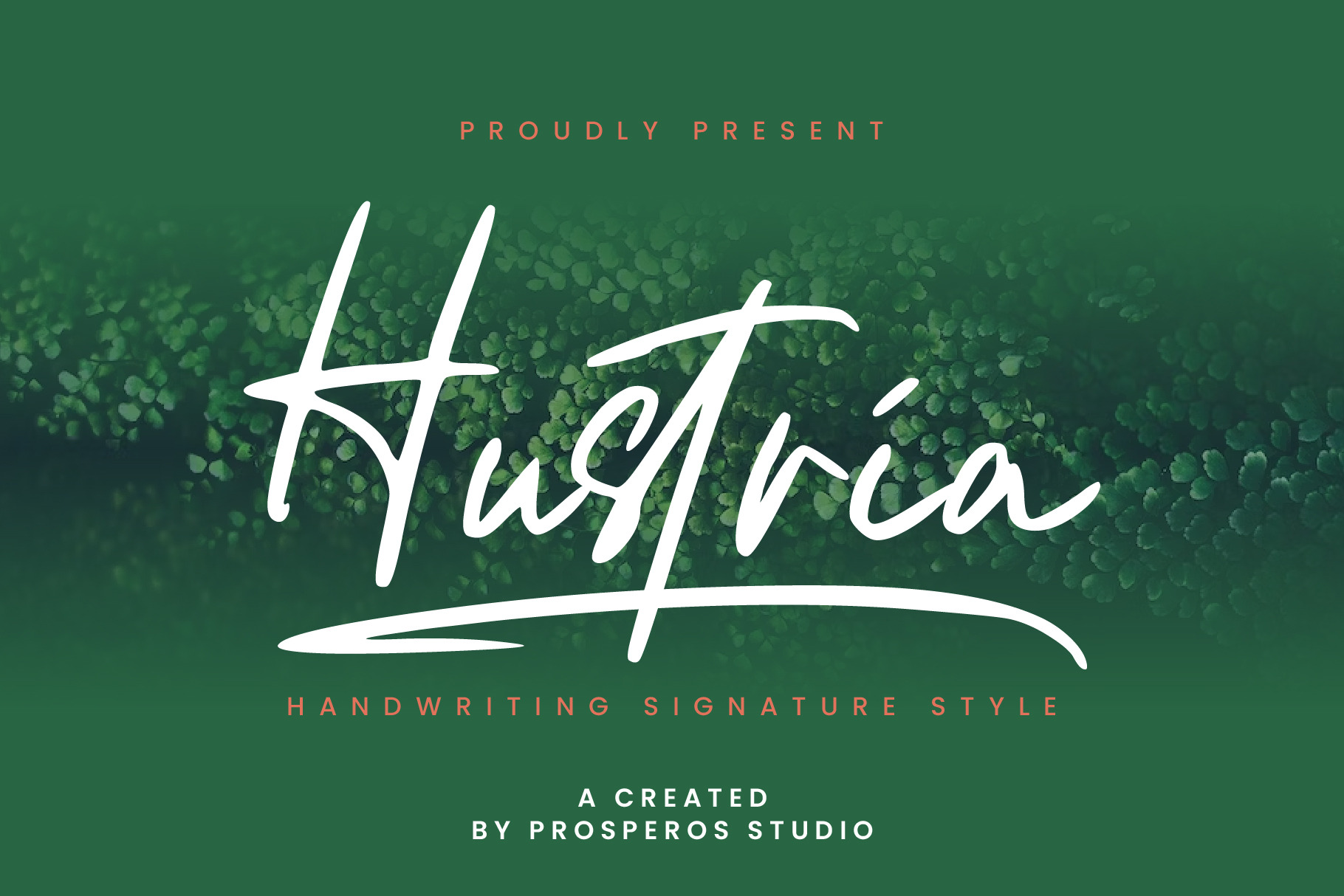
Hustria - Script Font
Hustria Script Font Modern script font, perfect for many different project ex: Logotype, printed quotes, invitations, cards, product packaging, headers, Letterhead, Poster, Apparel Design, Label, and etc.
- Ligature and Swashes
- Lowecase and Double Underscore